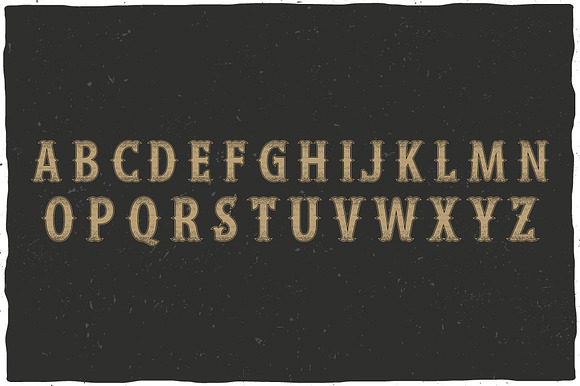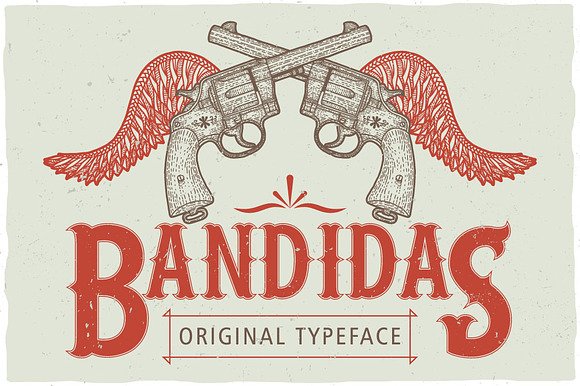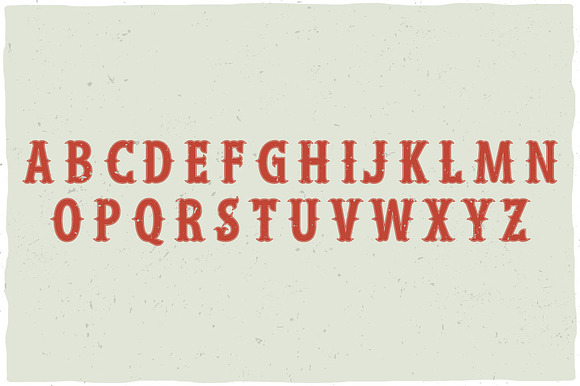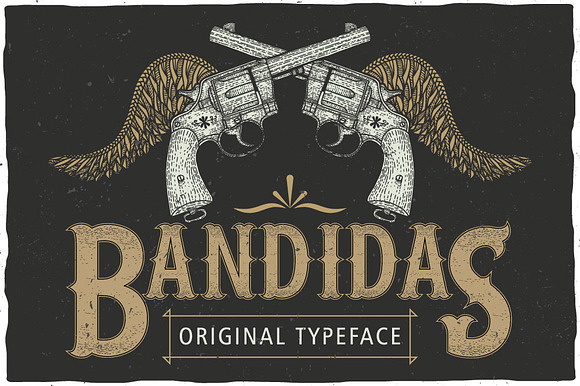
Bandidas Label Font
Bandidas font! Uppercase letters. In ZIP archive you will get two EPS CS3 files with vector letters and sample label design including hand drawn pistols and wings. Also you will get two fonts in clean and rough view in OTF and WOFF formats.